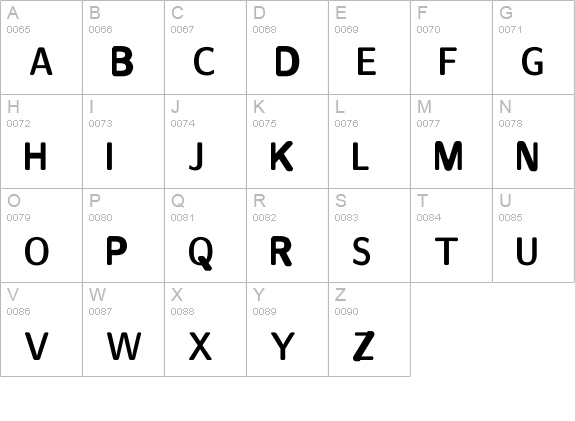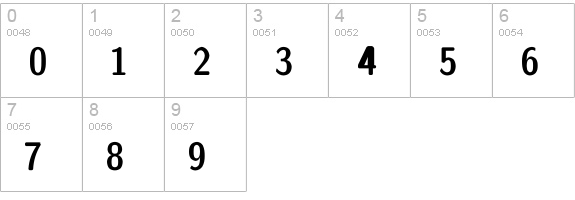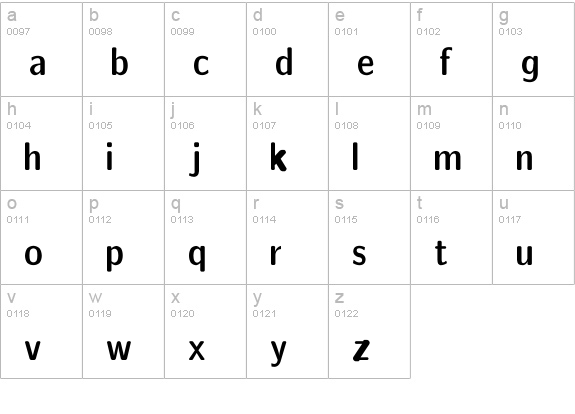
CM_SansSerifCondensed DemiBold is a sub-bold, structured variant in the CM_SansSerifCondensed typeface family \xE2\x80\x94 well suited to sub-headlines and emphasised passages.
CM_SansSerifCondensed DemiBold font is a modern and stylish typeface that exudes sophistication and professionalism. Its condensed design adds a sleek and elegant touch to any project, making it perfect for headlines, titles, and branding materials. The bold weight of this font commands attention and conveys a sense of confidence and authority. What sets CM_SansSerifCondensed DemiBold font apart is not only its striking appearance but also the fact that it is available for free download at FontsMarket.com. This means you can easily access this high-quality font without any cost, allowing you to elevate your designs without breaking the bank. Whether you're working on a print project, digital design, or web development, CM_SansSerifCondensed DemiBold font is a versatile and reliable choice that will make your text stand out with its bold and impactful presence.